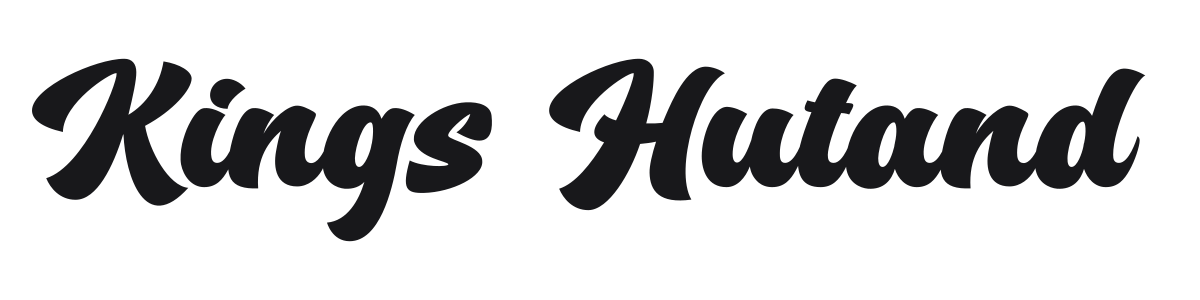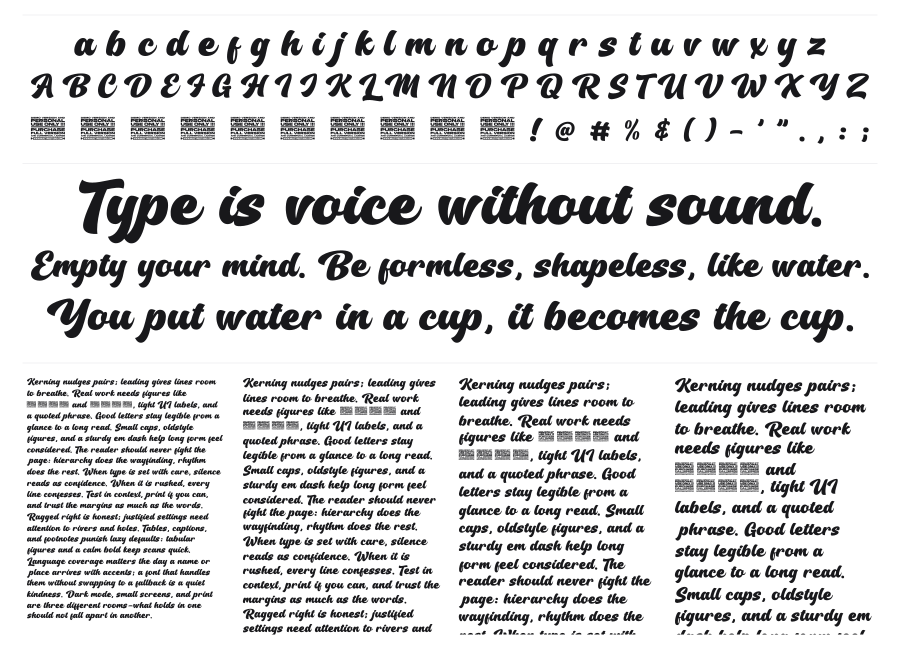
Kings Hutand
Kings Hutand is a bold brush script with deep stroke contrast and a confident forward lean. The heavy downstrokes and fluid connecting strokes evoke classic hand-lettered signage and mid-century Americana. It commands attention at large sizes and carries a warm, approachable energy that works across branding, packaging, and editorial headlines.